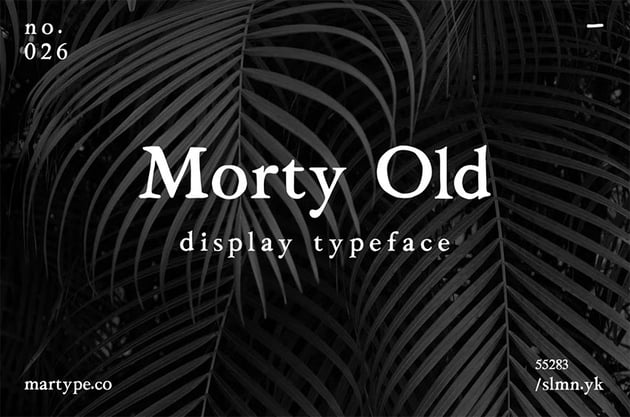
Serif Fonts
Welcome to the ultimate guide to serif fonts! Whether you're new to the subject or a bit more experienced, this guide will help you out. We'll start by explaining what a serif font is and when you'd want to use one, and then we'll look at some different types of serif fonts and introduce you to some great examples.
What Is a Serif Font?
First things first: what is a serif font? And what is the difference between serif and non-serif fonts?
The answer is simple. Just look at the example below, and you'll see that Times New Roman on the left has little strokes at the end of each letter, whereas Helvetica on the right doesn't.
Those strokes are called "serifs", so Times New Roman is a serif font, whereas Helvetica is a sans-serif font (meaning "without serifs").
Serif vs. Sans-Serif Fonts
Knowing the ins and outs of different font styles is essential for any budding graphic designer. In this quick video, you'll learn the major differences between serif and sans serif fonts.
Examples of Serif Fonts
What are some serif fonts that are good to use in your designs? Check out the examples below. As you can see, there's quite a range of different types of elegant serif fonts. We'll look at some of those different types later on.
Here are some great reasons to use serif fonts:
1. To Look Authoritative
Serif fonts often have a more traditional look than sans-serif fonts. This medical newsletter template, for example, uses a serif font both for the headline and body text to give it an authoritative, trustworthy appearance.
2. To Make It Easy to Read
Books with large amounts of body text, like long novels, often use serif fonts because the serifs help readers recognise each letter, especially at small sizes. See how this elegant book template uses a serif font for its body text?
3. For a Retro Appeal
Old posters and newspapers often used serif fonts, so if you want to create a retro or vintage look, a serif is a great choice. Check out the use of serif fonts in this vintage poster template.
Old-Style Serif Typefaces
First, let's look at old-style serif fonts. One of the key characteristics is a diagonal, wedge-style serif instead of the flat serifs seen in other types of serif fonts. Old-style serifs tend to have a classy, timeless aesthetic that makes them perfect for books, magazines, or other formal contexts.
Transitional Serif Typefaces
As the name suggests, transitional serifs are a "transition" between old-style serif fonts and more modern serif fonts, like Didones. They have more contrast than old-style serifs, but not as much as Didones.
Some of the most popular serif fonts, like Times New Roman, are transitional serifs. They're usually highly legible and are a great choice for the body text in formal documents.
Didone Serif Typefaces
The name "Didone" comes from a combination of two classic serif fonts: Didot and Bodoni. Didone fonts tend to have a high contrast, meaning that there's a lot of variation between thick and thin stroke weights. You're likely to see them used in fashion magazines, high-end advertising, and luxury product designs.
Use a Didone font if you want to give your brand a luxury vibe. Here are some elegant serif fonts from this category:
Slab Serif Typefaces
Again, the clue's in the name here. Slabs are thick and blocky, and that's what the serifs on these bold serif fonts are like. These typefaces tend to be very consistent and are often high-impact fonts used for display purposes. Classic serif fonts like Rockwell and Roboto are slab serifs.
What is a good serif font for headlines? Try one of these wonderful slab serif font examples:
Famous Serif Fonts
Is Times New Roman a serif font? Of course it is! It's a famous serif font, but there are also plenty of others, like Georgia and Rockwell. We'll look at some popular serif font examples in this section.
Because these fonts are so familiar, you may want to use a slightly different font for your designs. So we've also linked to articles recommending some of the best serif fonts that share some of the key characteristics of these classic typefaces.
Popular Serif Fonts
We've covered a lot of the best serif fonts in this article, but there are still plenty more out there. Whether you want bold serif fonts or a condensed serif font, you can find what you need. For example, here's a selection of six of the most popular serif fonts on Envato Elements: